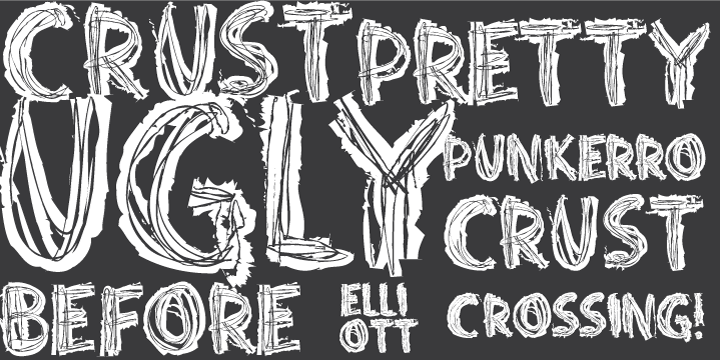
Get ready to unleash your inner rebel with Punkerro Crust, a font that shatters the boundaries of conformity and ignites your creativity. This captivating display font, crafted by the visionary minds at Tour De Force, is not for the faint of heart.
Punkerro Crust is a testament to individuality, a fearless fusion of edgy aesthetics and raw power. Its bold strokes and sharp angles command attention, leaving an indelible mark on any design. Whether you're a seasoned designer or a creative spirit just starting your journey, Punkerro Crust is your weapon of choice for making a statement.
Immerse yourself in the world of Punkerro Crust and discover a font that defies expectations. Its unique character set, complete with uppercase letters, lowercase letters, numbers, and symbols, empowers you to craft designs that break free from the ordinary. Unleash your imagination and let the energy of Punkerro Crust fuel your creativity.
With Punkerro Crust at your fingertips, you'll find inspiration in the most unexpected places. Its versatility knows no bounds, making it the perfect choice for logos, posters, album covers, social media graphics, and any project that demands a bold and unconventional touch.
Stand out from the crowd and embrace the rebellious spirit of Punkerro Crust. Let your designs speak volumes, conveying a message of strength, attitude, and nonconformity. This font is more than just a tool; it's a statement piece that reflects your unique personality and artistic vision.
Join the ranks of those who dare to be different. Punkerro Crust is more than just a font; it's a declaration of your individuality. Embrace its untamed energy and watch your designs transform into masterpieces that leave a lasting impression.